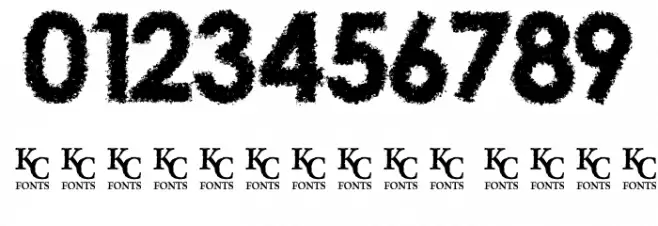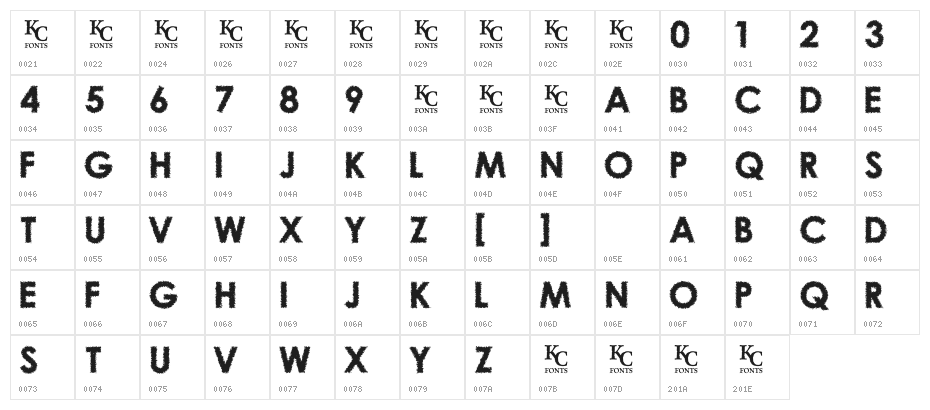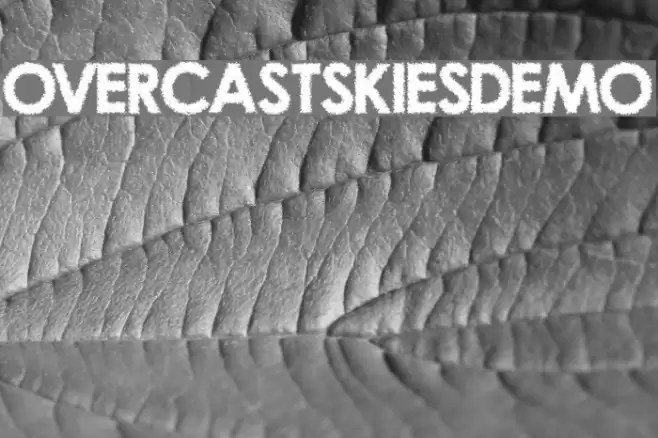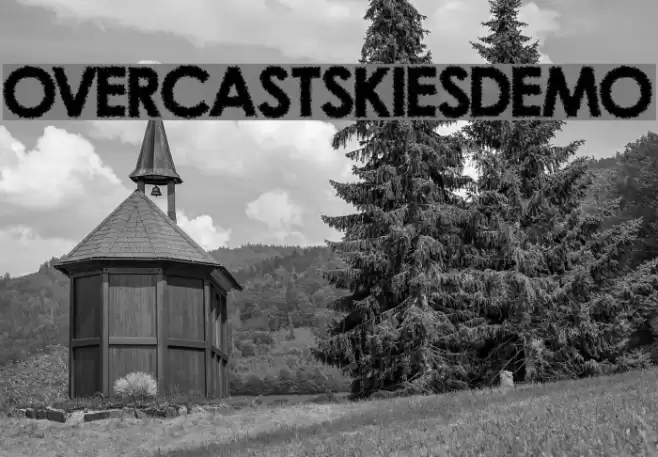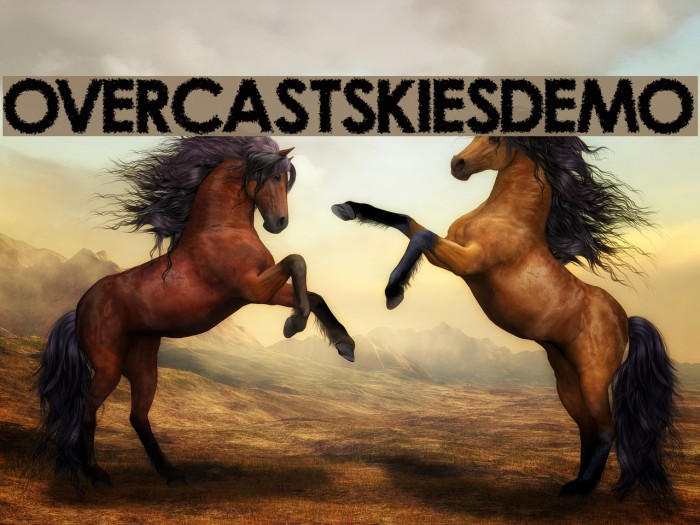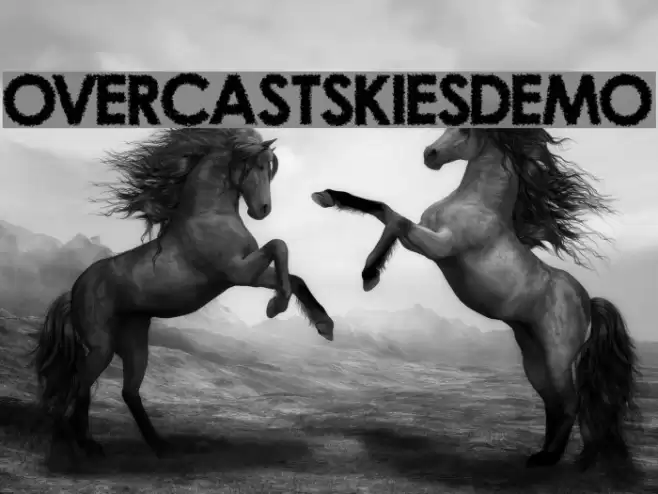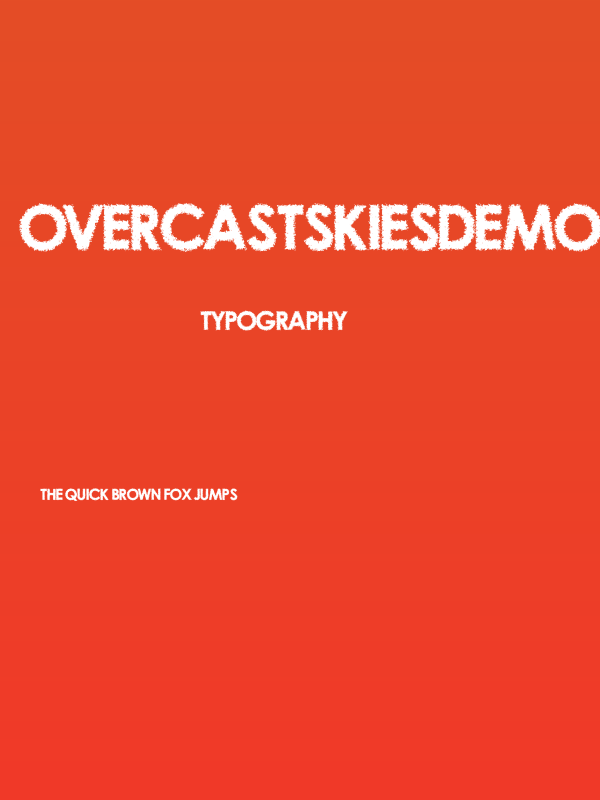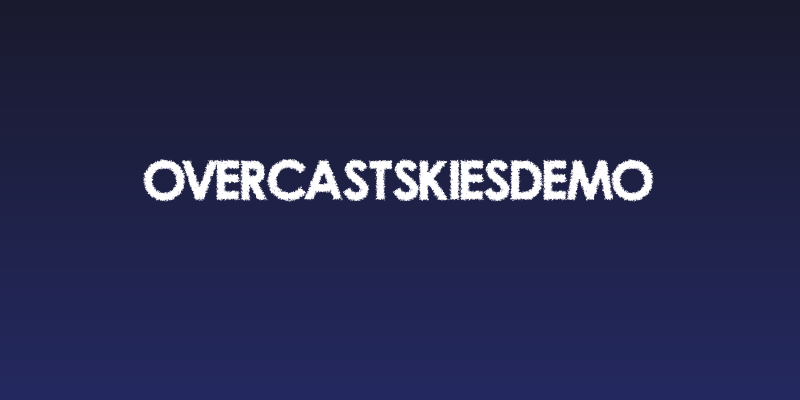
OvercastSkiesDemo Font
OvercastSkiesDemo Description
This font features a unique, textured appearance that resembles a rough, hand-drawn style. The letters are bold and have a distinctive, irregular edge that gives them a dynamic and energetic feel. The uppercase and lowercase characters maintain a consistent style, with numbers and special characters following the same design. This font stands out due to its artistic and somewhat chaotic look, making it ideal for creative and unconventional projects. Its boldness ensures readability while the textured effect adds a layer of visual interest.
| Proposed Projects | Ideal for creative projects such as posters, album covers, and artistic branding where a bold and unique statement is needed. |